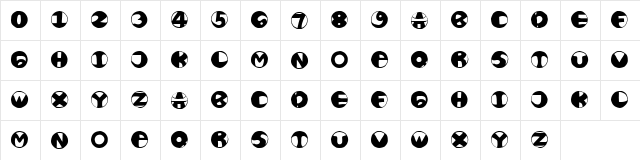
HOAAEMMM Regular
| Designer | Oziel89 Studio |
Design Context for HOAAEMMM Typeface
HOAAEMMM is a composed and adaptable typeface that performs quietly and consistently across a wide range of design contexts.